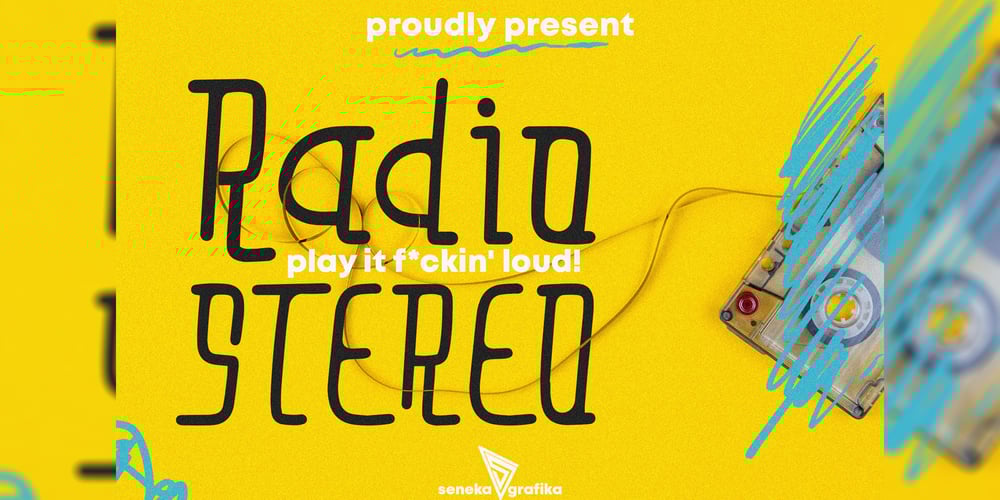
Radio Stereo
Radio Stereo font
Radio Stereo Font Family was designed by Muhammad Helmi and published by Senekaligrafika. Radio Stereo contains 1 styles and family package options. “Radio Stereo” is experimental vintage font style that to speak instant retro sensation, it was inspired by the inscription on the radio/televisiom in the 2000’s era.”Radio Stereo” will help you to create special and touching typographical design for your nostalgic and oldschool projects.Perfect when you place them into magazines, book cover, cafe product, newspaper titles, poster, and many more.It is really universal and modern font. The owner of endless possibilities!